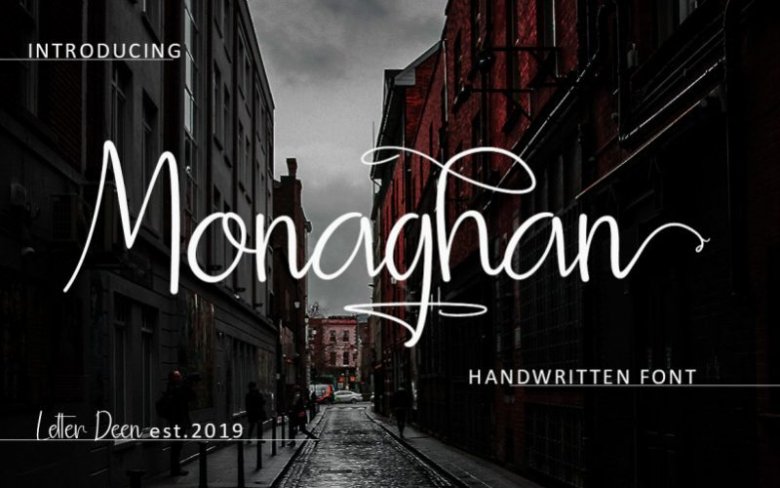
Monaghan Signature Font
Hi everyone! Monaghan is a handwritten font, with sweet touches and beautiful curves on each letter. This font is great for your next creative project.
Monaghan is perfect for fashion magazines, product watermarks, branding projects, wedding designs, social media posts, advertisements, product designs, label product, logo product, photography, invitation, card business and any projects that need a handwritten taste.